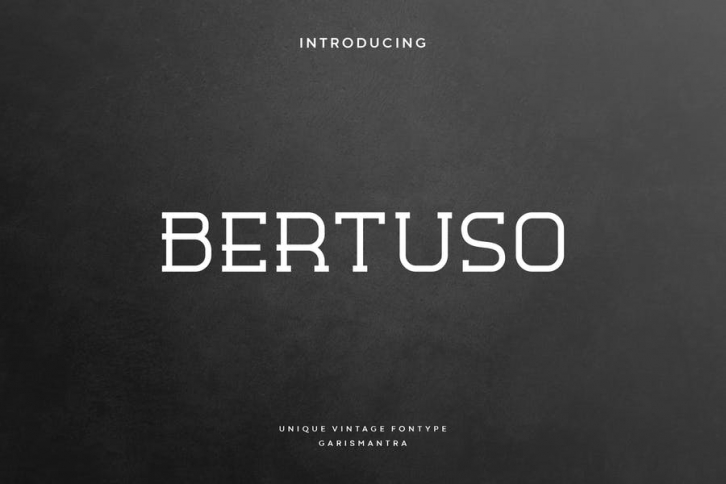
Bertuso is vintage sans handcrafted minimalist with a vintage vibe, you can use this font for any project. Bertuso perfectly suited on print screen. it’s perfect for Branding, name card, poster, logo, magazine, cover, banner, t-shirt and headers, or even large-scale artwork.